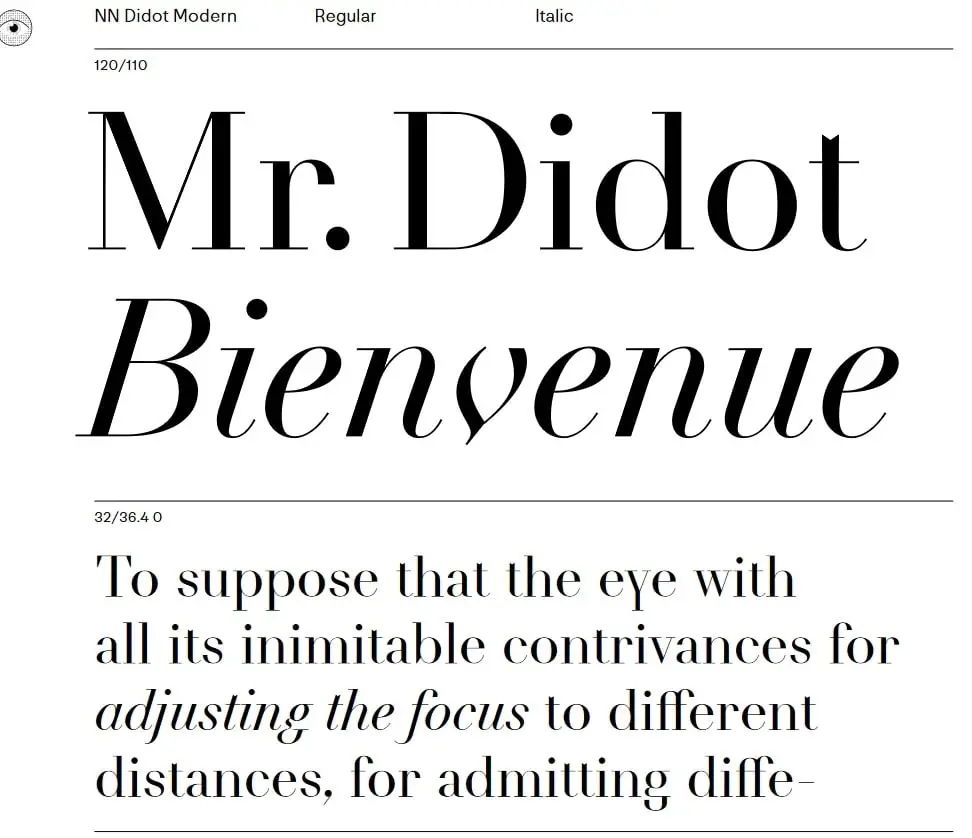
The Nouvelle Noire Didot Modern Font Family is a sophisticated typeface that blends classic elegance with contemporary design. This font family offers a range of styles and weights, making it versatile for various applications.
- Multiple weights including Regular, Bold, and Italic.
- Stylish serif design for a refined appearance.
- Supports multilingual characters for global use.
- Designed for high-quality print and digital use.
- Ideal for branding, logos, editorial design, and web typography.
- Perfect for creating elegant invitations, business cards, and promotional materials.
Nouvelle Noire Didot Modern Font Family